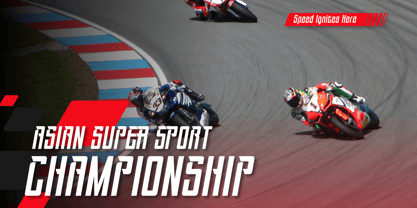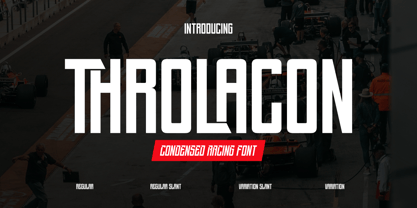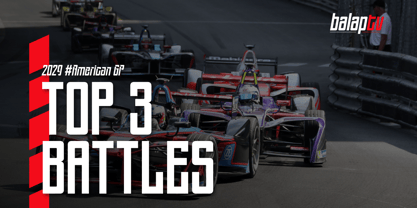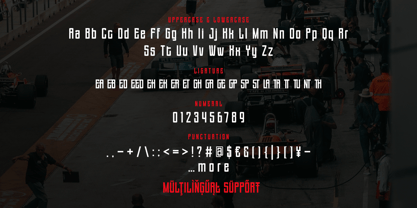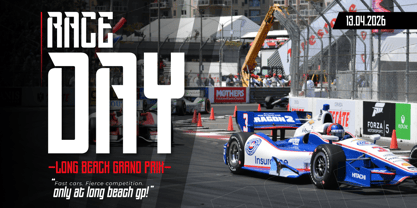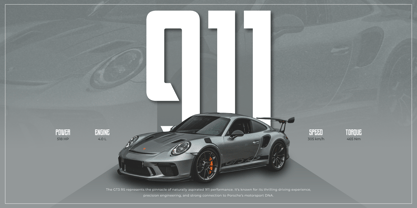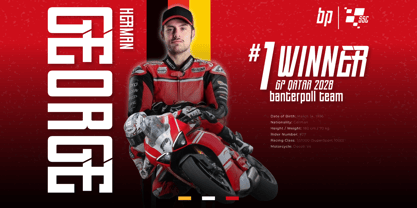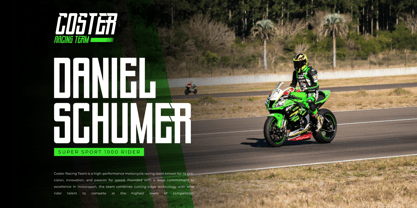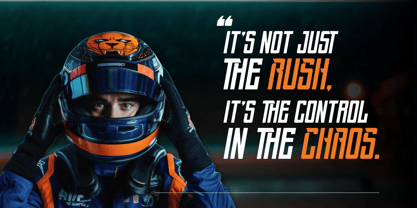
Throlacon
Throlacon is a bold and high-speed condensed font designed to bring adrenaline and motion into your typography. With its sharp angles, tight spacing, and aerodynamic style, Throlacon is perfect for racing themes, automotive brands, sports gear, action-packed movie titles, and speed-focused promotions.
Its condensed proportions allow you to make the most of limited space while still delivering a punch of energy and legibility. Whether you're creating event posters, branding race teams, or designing apparel for motorsport enthusiasts, Throlacon provides that edge of velocity and intensity that sets your design apart.
Throlacon isn’t just a font—it’s a statement of speed, precision, and performance. Put your message in the fast lane.
- All glyphs and Feature
- Fonts include Multilingual: Support for 85 languages.